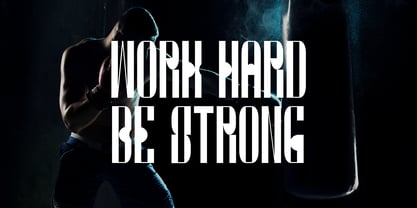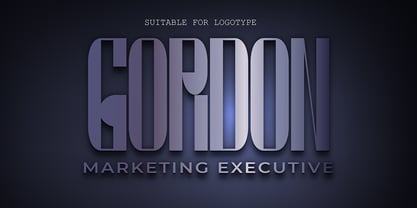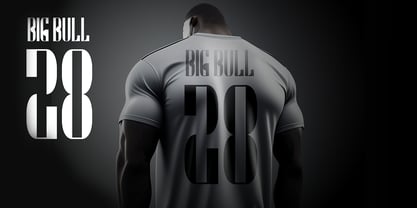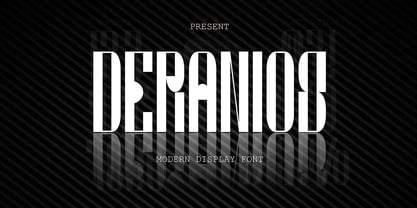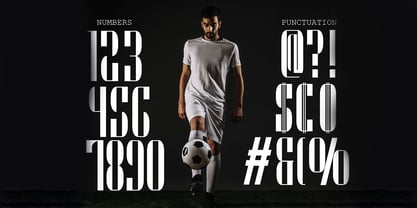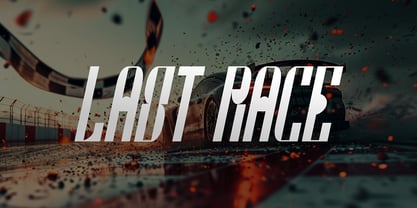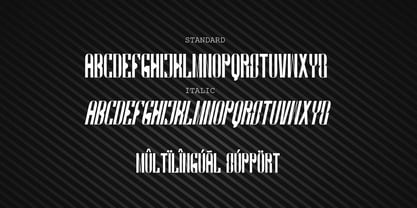
Deranios
by Sipanji21
The Deranios Font Family was designed by Sipanji and published by Sipanji21. Deranios contains 2 styles and family package options. More about this family
Deranios is a sleek and dynamic modern sporty display font featuring thin and tall characters that exude speed, precision, and sophistication. Designed for high-energy projects, this font brings a futuristic and competitive edge, making it perfect for sports branding, esports logos, racing themes, fitness promotions, and tech-inspired designs.
With its clean lines and sharp structure, Deranios delivers a bold yet minimalistic aesthetic, ensuring maximum impact in any design. Whether you're creating merchandise, posters, gaming graphics, or athletic apparel, this font enhances your visuals with a strong, fast, and stylish look.